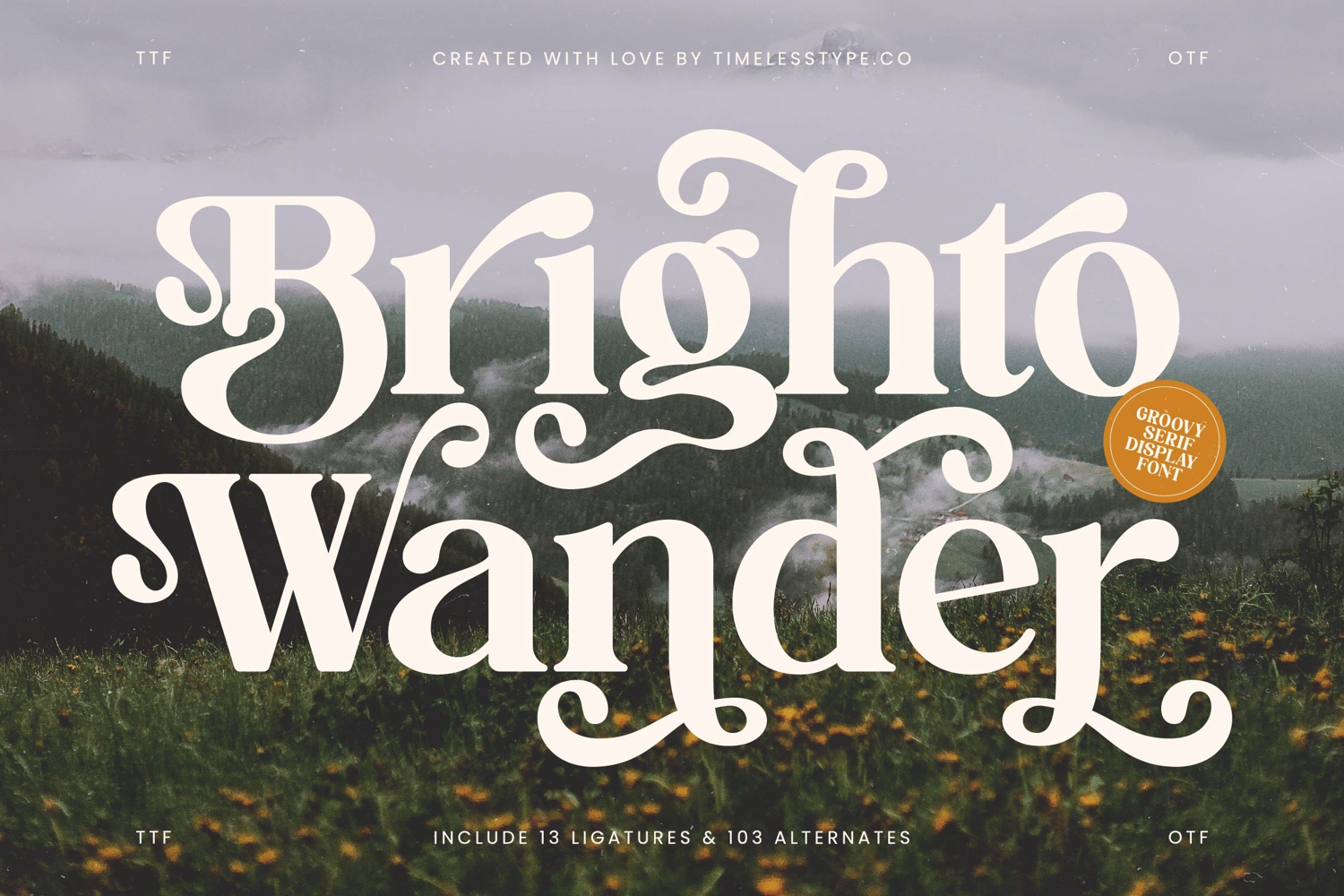
Brighto Wander - Groovy Serif Display Font
Brighto Wander
Brighto Wander Italic
Brighto Wander - Groovy Serif Display Font
Unleash unparalleled design creativity with a truly distinctive typeface. Font Brighto Wander - Groovy Serif Display Font Serif Display stands as a testament to captivating elegant typography, blending a nostalgic groovy serif display font aesthetic with modern sophistication. Its fluid curves and expressive serifs immediately command attention, making it the ultimate choice for projects demanding a touch of whimsical elegance and unique personality. This display font is meticulously crafted to leave a lasting visual impression. Elevate your visual narratives with remarkable customization. Offering an impressive suite of 13 ligatures and 103 alternates, Font Brighto Wander - Groovy Serif Display Font Serif Display empowers designers with immense flexibility to craft truly unique compositions. It is perfect for luxury branding, high-end packaging design, sophisticated editorial design, fashionable headlines, and captivating posters, where a memorable and artistic flair is essential. This typeface is designed to infuse every project with an authentic, handcrafted feel. Achieve global resonance with a truly adaptable typeface. With its extensive multilingual support, Font Brighto Wander - Groovy Serif Display Font Serif Display adapts seamlessly across global markets, making it incredibly versatile font for international projects. This comprehensive language coverage ensures your brand message maintains its distinct charm and clarity, regardless of geographical boundaries. It’s the definitive solution for designers aiming for expansive reach and universal appeal, embodying a truly global design sensibility. Transform ordinary concepts into extraordinary visual experiences. Font Brighto Wander - Groovy Serif Display Font Serif Display is more than just a font; it’s a powerful tool for developing compelling brand identity and impactful creative design. Its unique character and versatility provide an aesthetic foundation that distinguishes your work. Invest in this exceptional typeface to ensure your designs always stand out, delivering a distinctive, professional statement that truly captivates and connects.
appealing font.